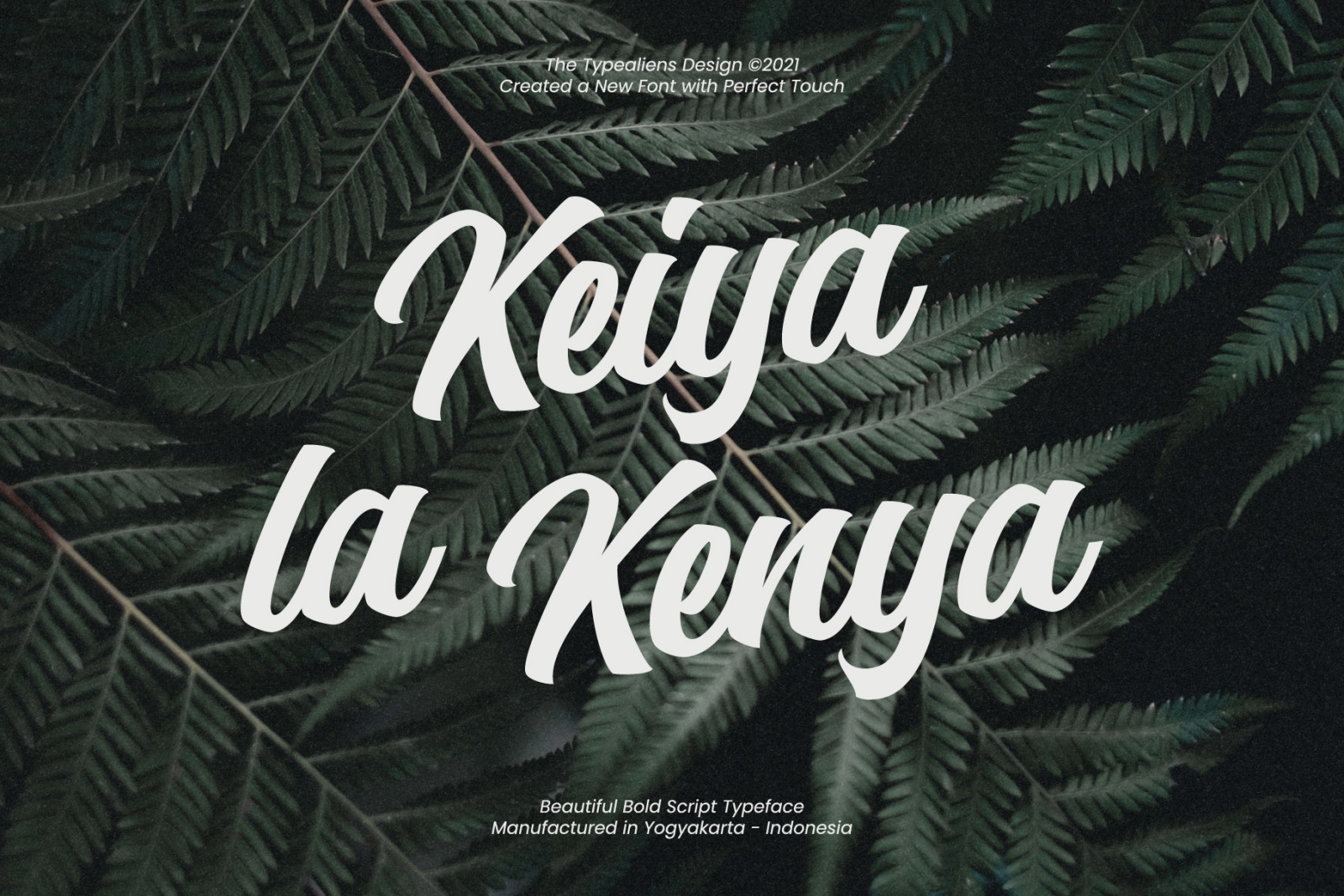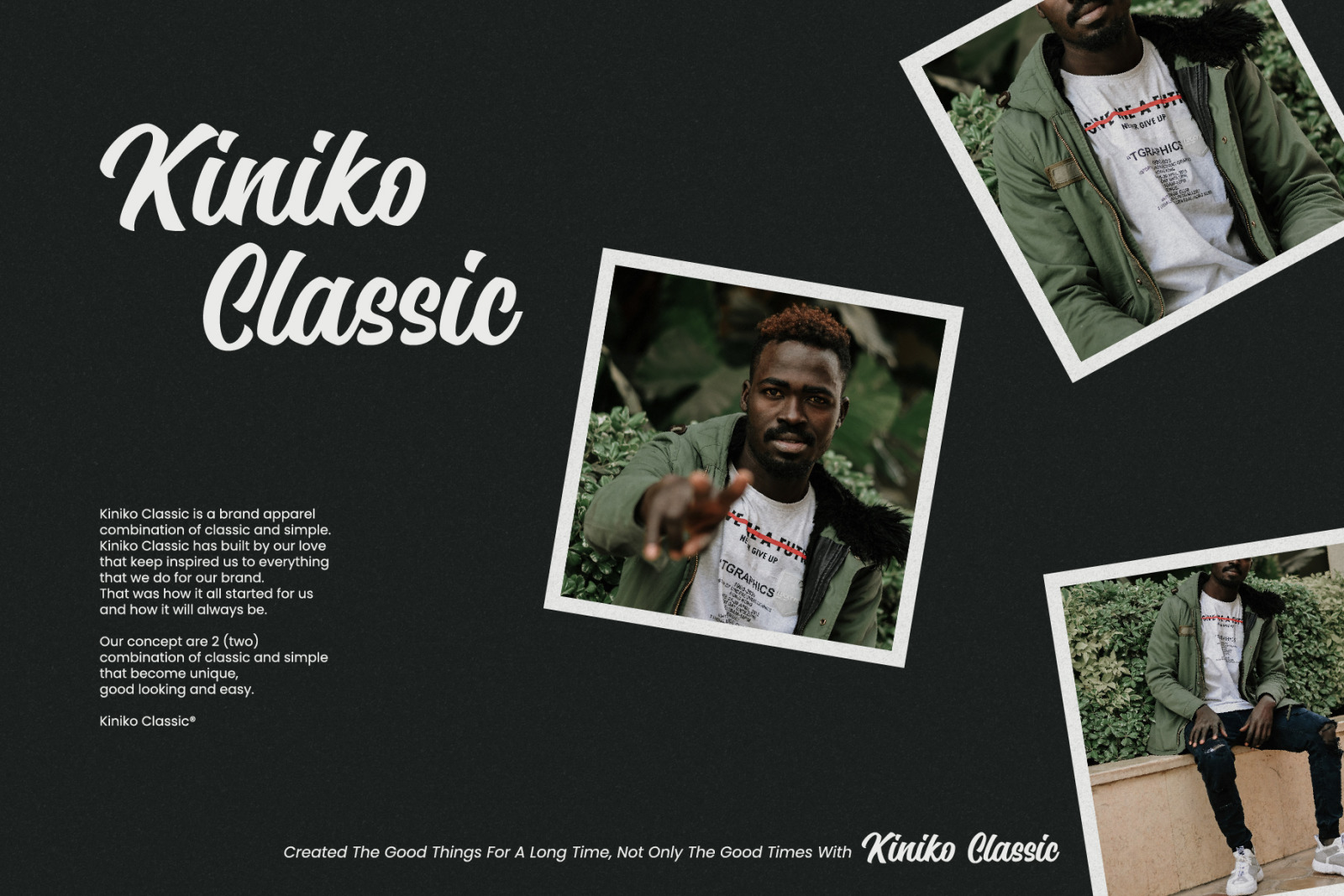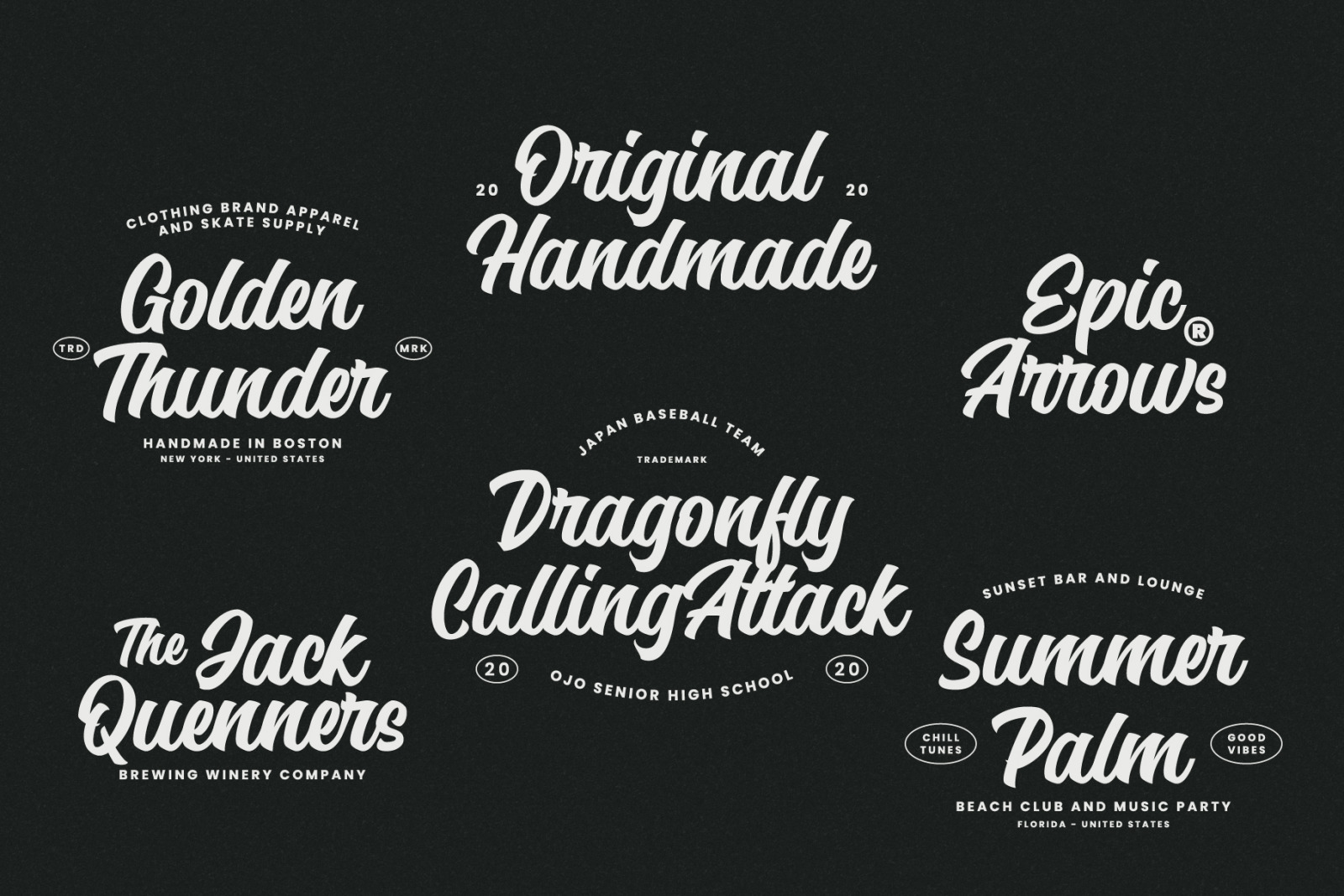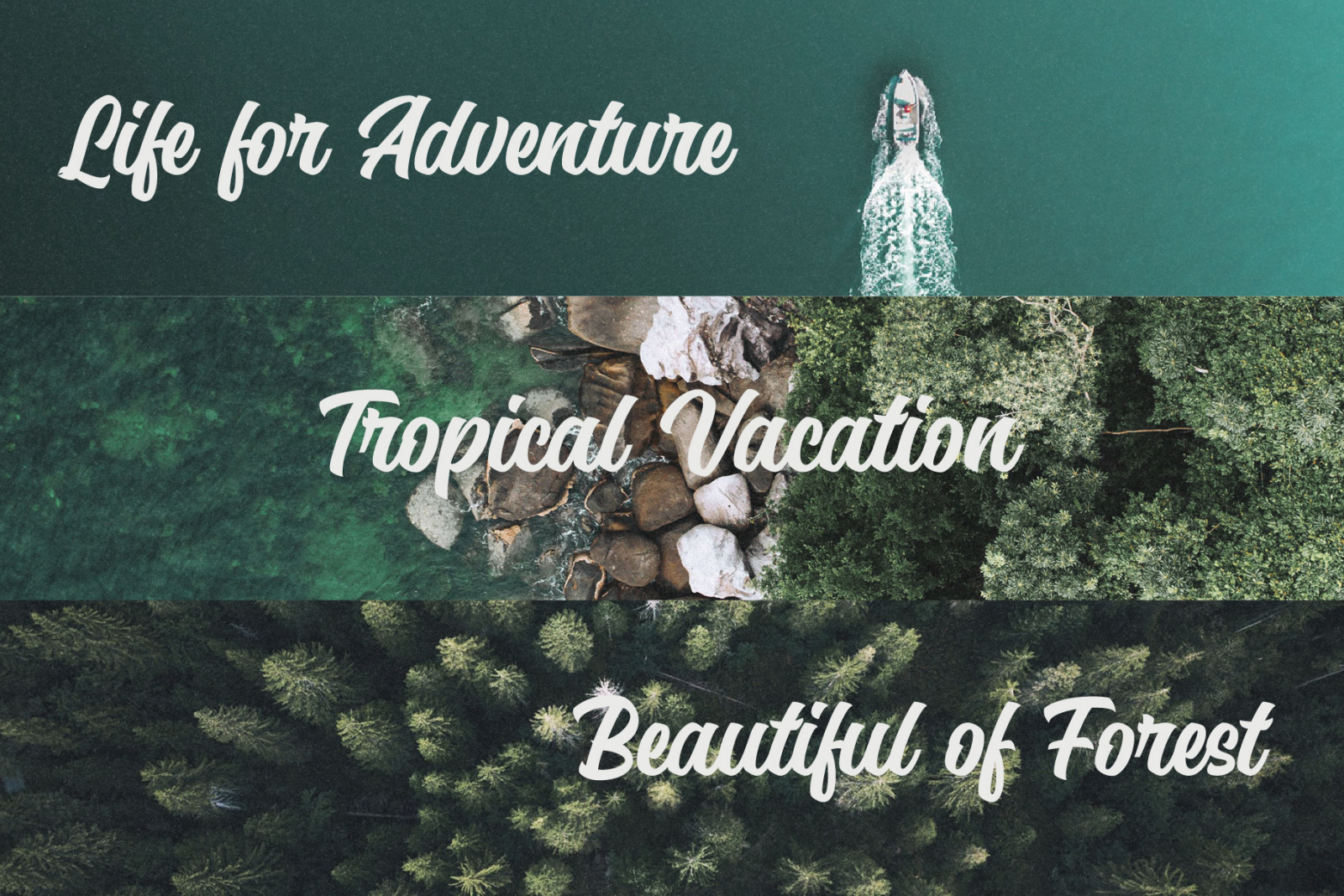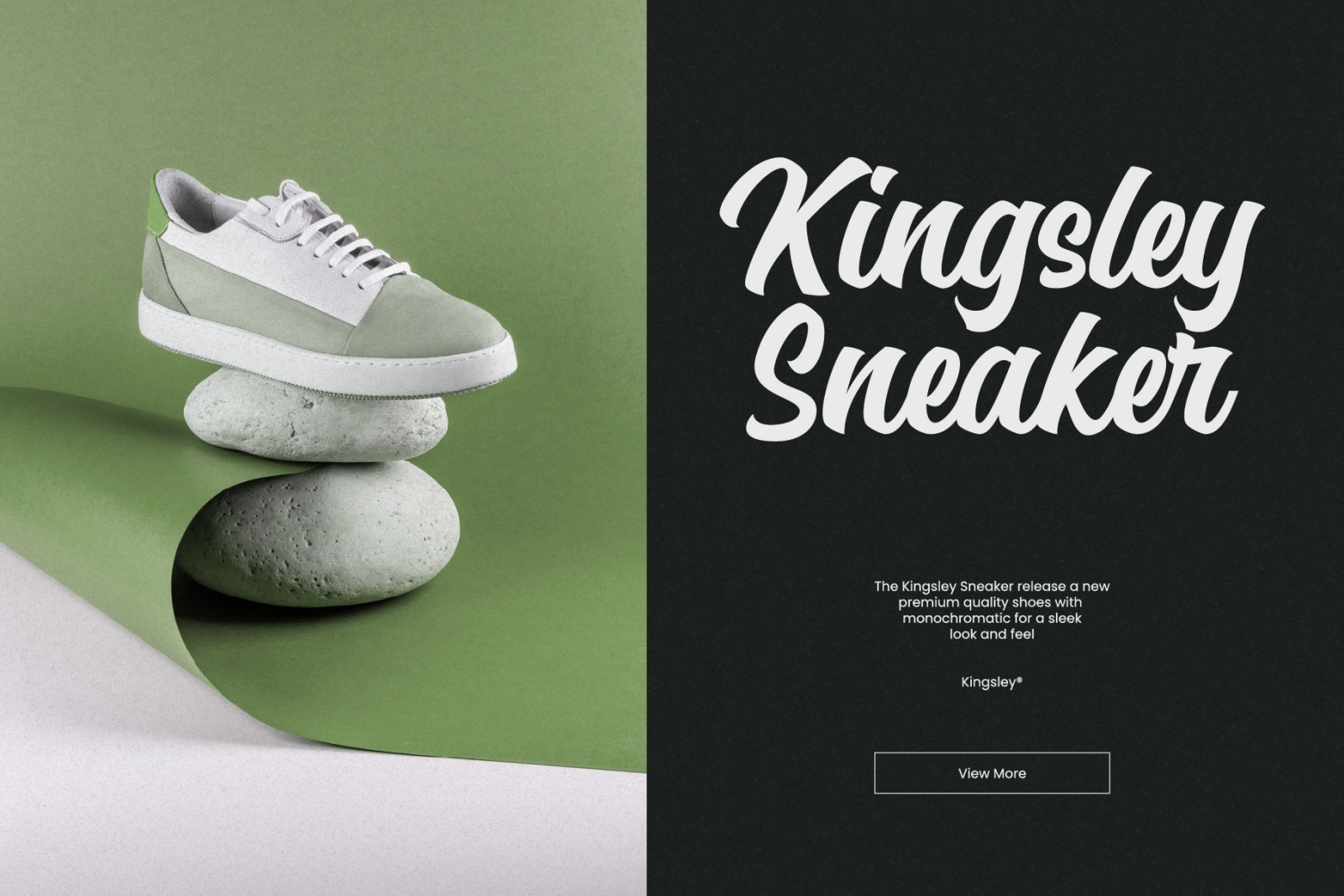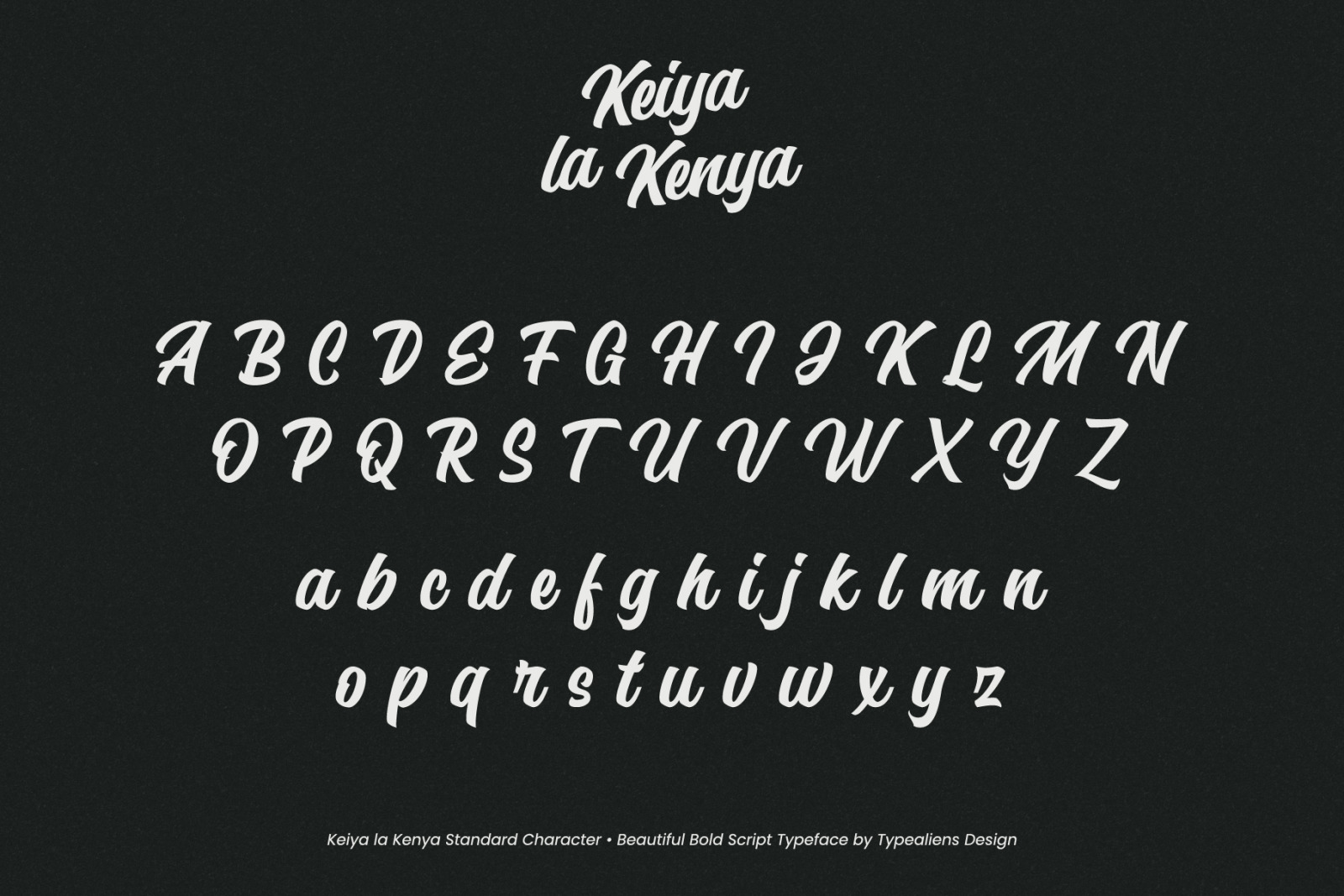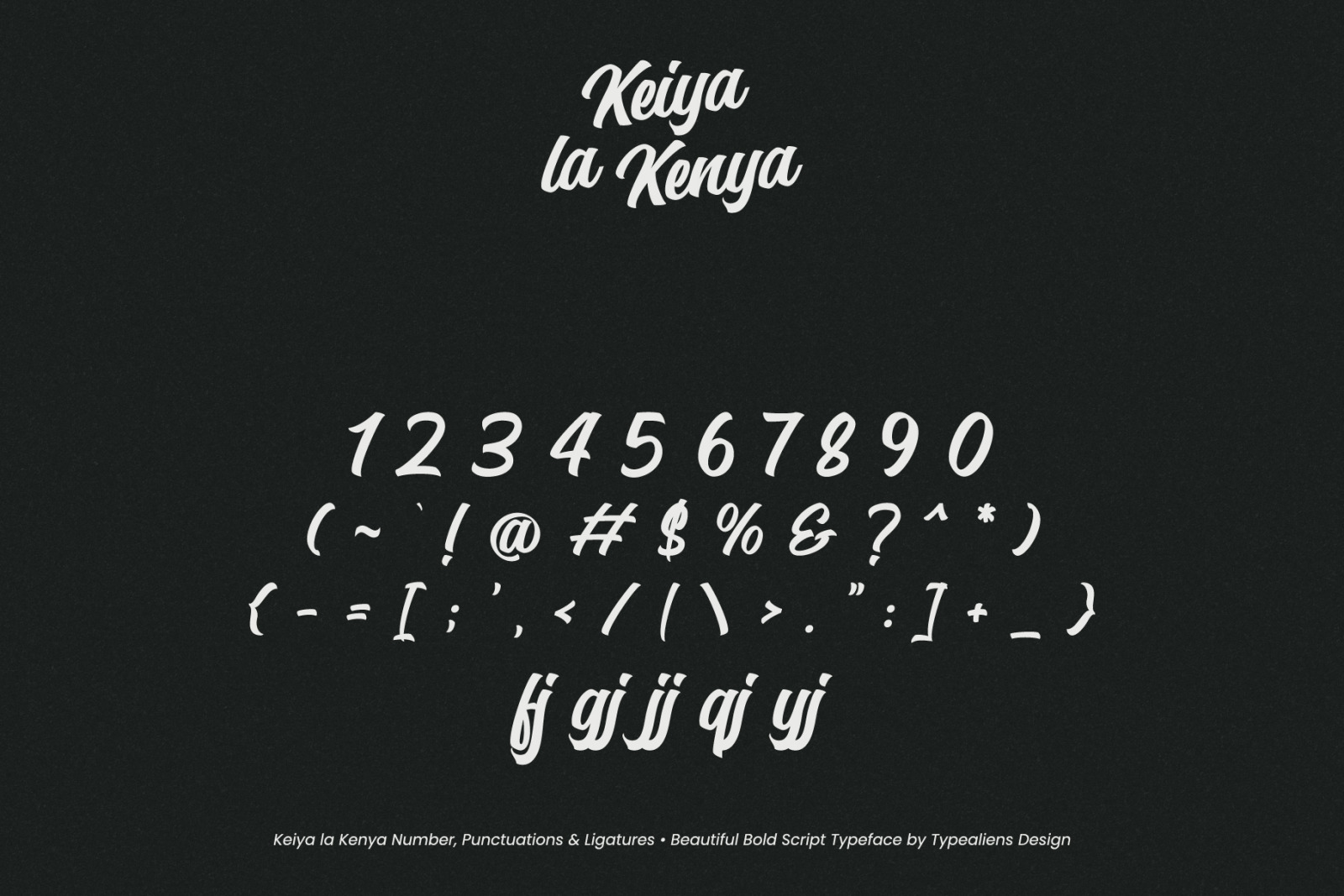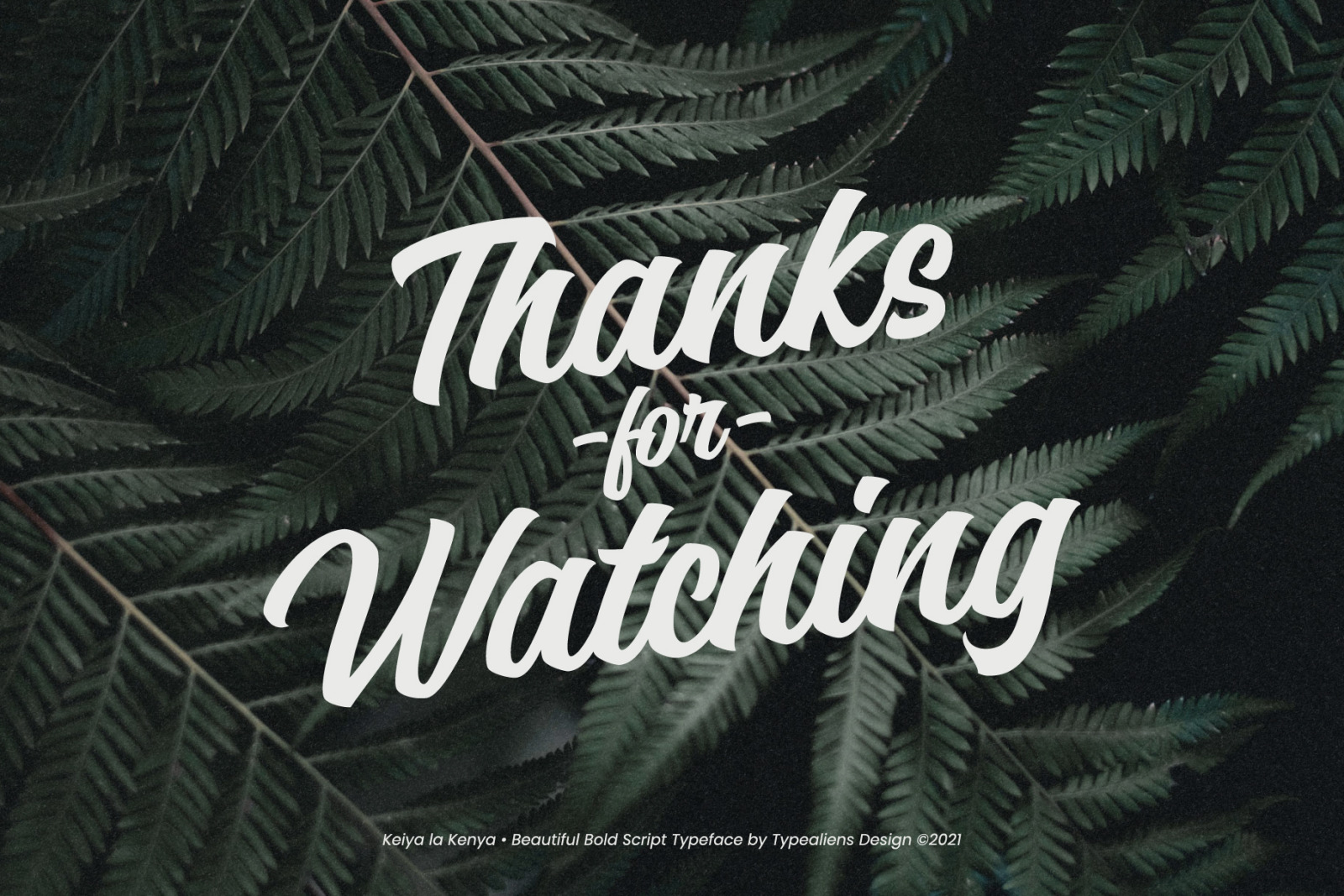
Keiya la Kenya Font
KEIYA LA KENYA is a beautiful script font suitable for modern design, branding on social media. It will be very suitable for casual designs such as shoe brands or other fashion